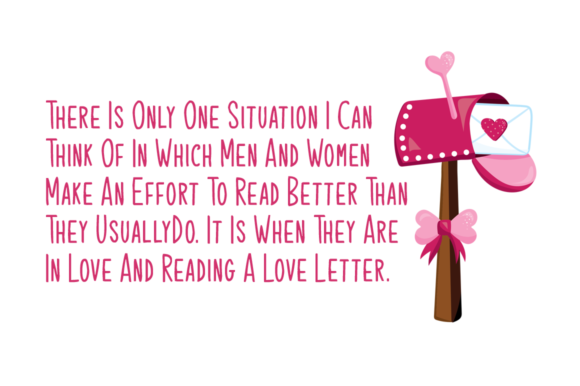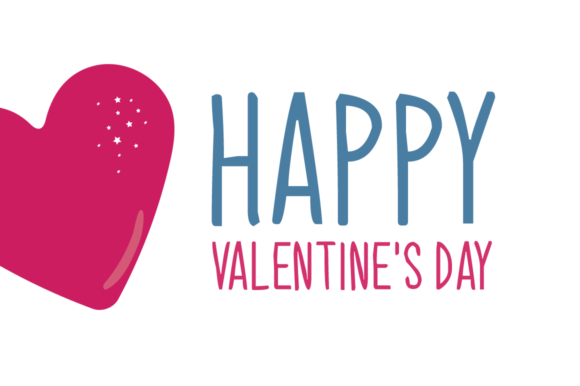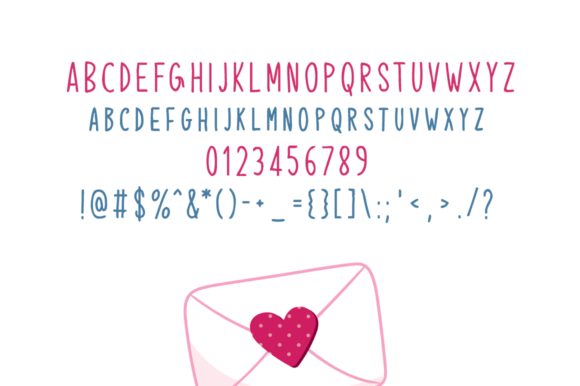
Introduction to Ladylove Font
Ladylove is cute display font.
It’s the perfect font for adding a romantic touch to any crafting design .
Why Choose Ladylove Font?
Ladylove Font offers exceptional quality and versatility, making it a valuable addition to your design toolkit. Whether you’re creating for personal projects or commercial use, Ladylove Font delivers professional results.